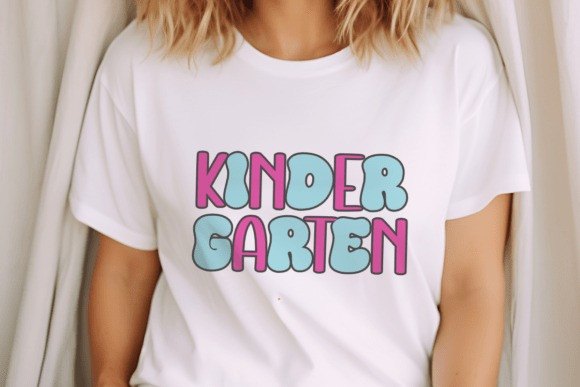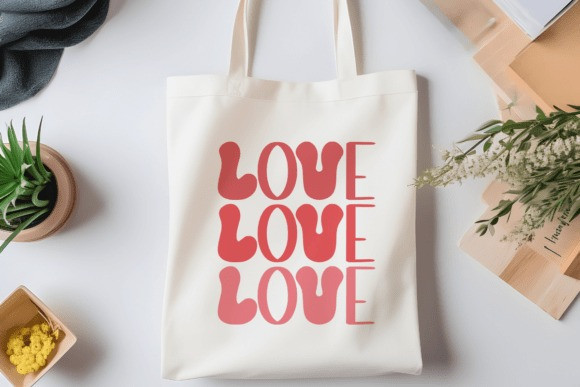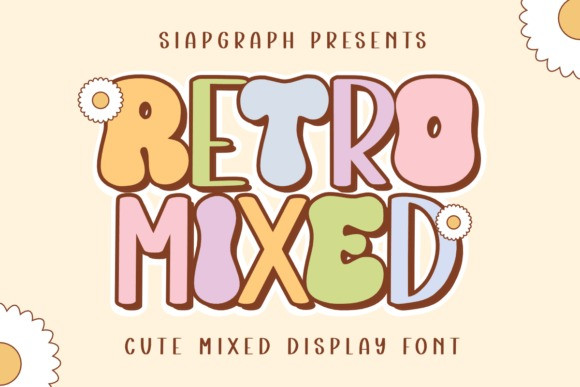
Retro Mixed Font
Retro Mixed Font is a charming and playful display font that brings a delightful blend of retro vibes and modern cuteness to your designs. Its unique mixed letterforms, each with a distinct and appealing shape, create a truly eye-catching aesthetic. This versatile font is perfect for a wide range of creative projects, including whimsical greeting cards, trendy t-shirt designs, adorable children’s books, cheerful invitations, fun social media graphics, impactful branding, and so much more. Its friendly and approachable style makes it ideal for anything that needs a touch of nostalgia and a pop of joyful personality.